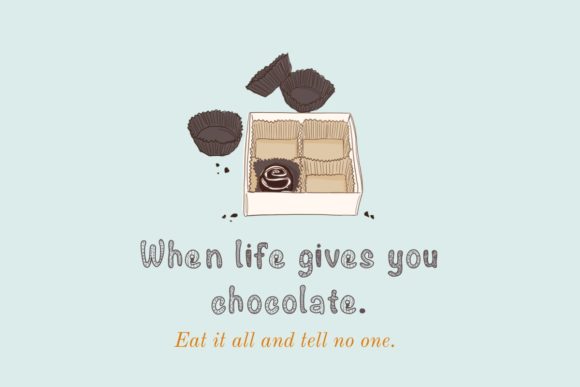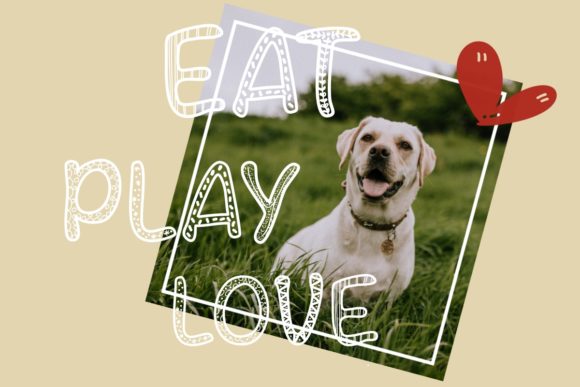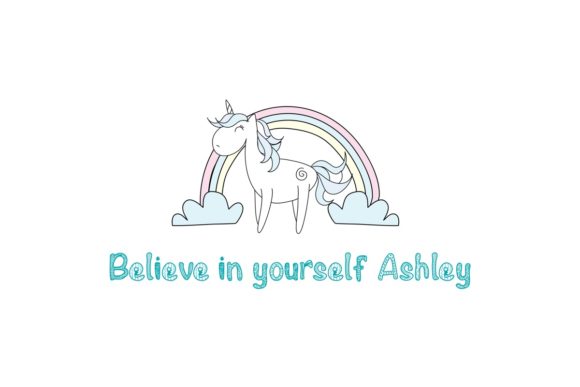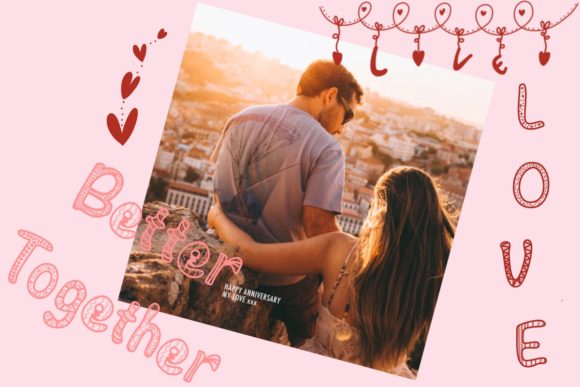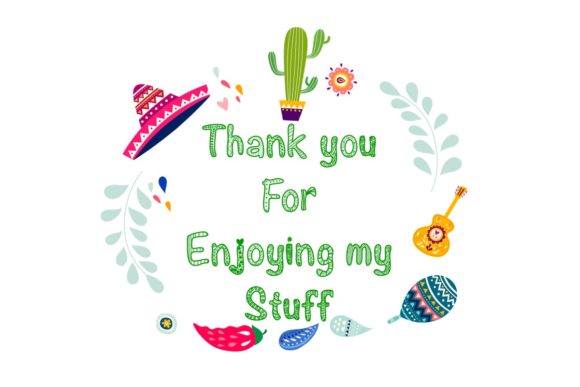
Introduction to Funny Fantasy Font
Funny Fantasy is a sweet and friendly outlined display font.
Its joyful and full of life style makes this font a wonderful choice for brightening up your designs .
Key Features of Funny Fantasy Font